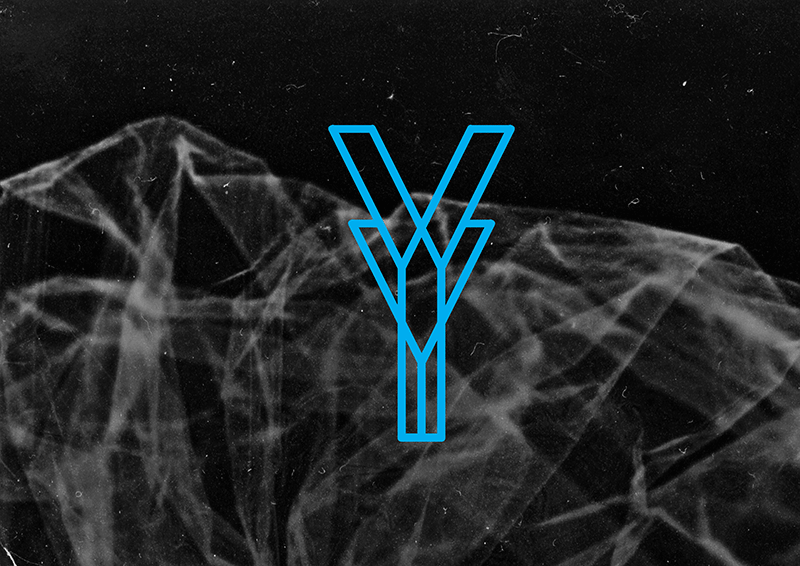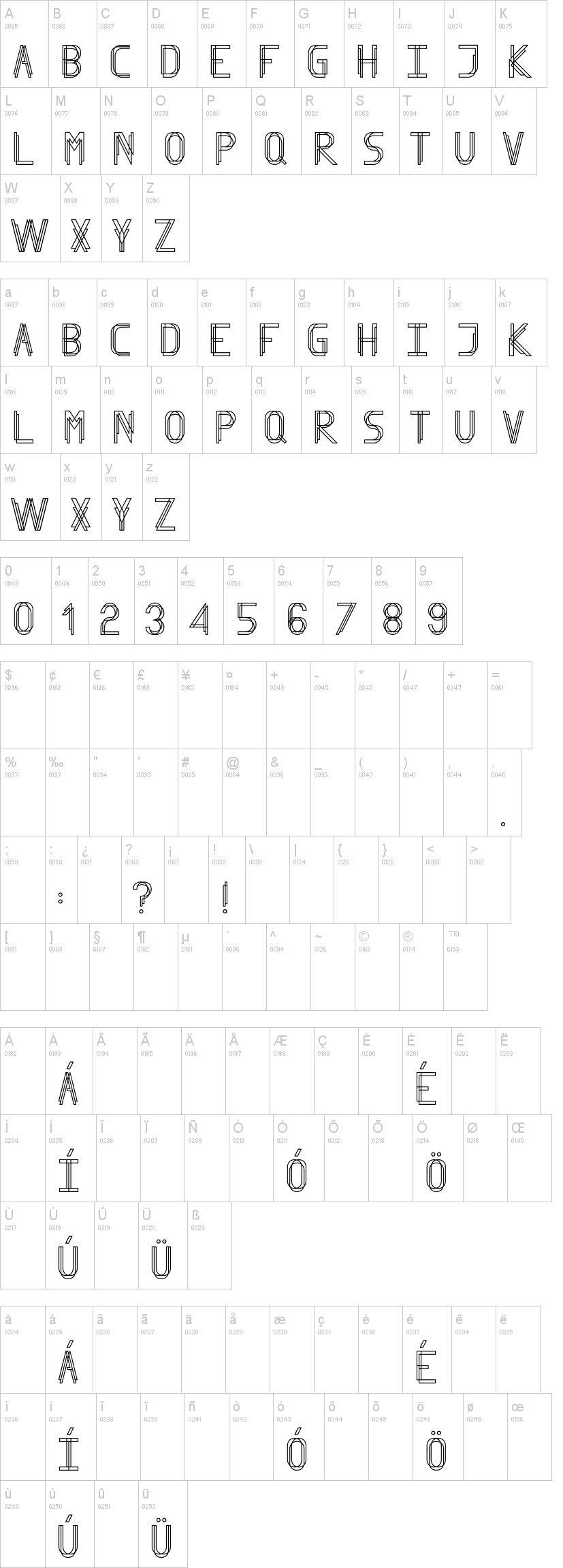
Note of the authorThe task was to create a modern, clean typeface, which is inspired by future technologies. Finity combines the complexity of the mechanical systems with the simplicity of the lines.